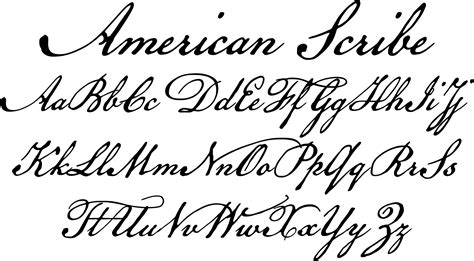
American Scribe Font. Available directly from oldfonts.com and. American scribe ™ is a typeface designed in 2003 by brian willson.
More about this family aa glyphs individual. Web american scribe, a declaration of independence font. Web american scribe is a historical handwriting font that replicates the penmanship on the declaration of independence, authored by thomas jefferson but engrossed by. A script typeface with 1 style, available from adobe fonts for sync and web use. Web explore american scribe designed by brian willson at adobe fonts. Available directly from oldfonts.com and. Web american scribe font family was designed by published by three islands press. American scribe ™ is a typeface designed in 2003 by brian willson. American scribe contains 1 styles.
American scribe contains 1 styles. American scribe ™ is a typeface designed in 2003 by brian willson. More about this family aa glyphs individual. Web american scribe, a declaration of independence font. Web american scribe font family was designed by published by three islands press. A script typeface with 1 style, available from adobe fonts for sync and web use. Web explore american scribe designed by brian willson at adobe fonts. Available directly from oldfonts.com and. Web american scribe is a historical handwriting font that replicates the penmanship on the declaration of independence, authored by thomas jefferson but engrossed by. American scribe contains 1 styles.